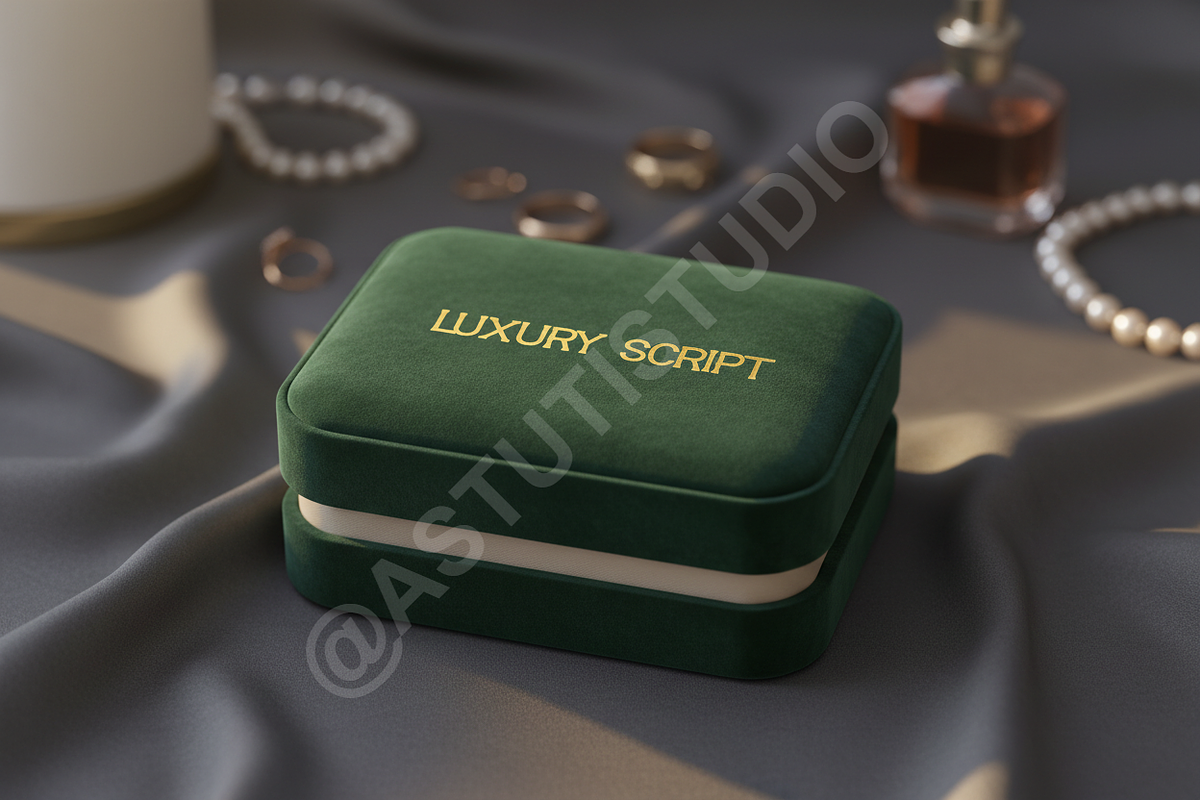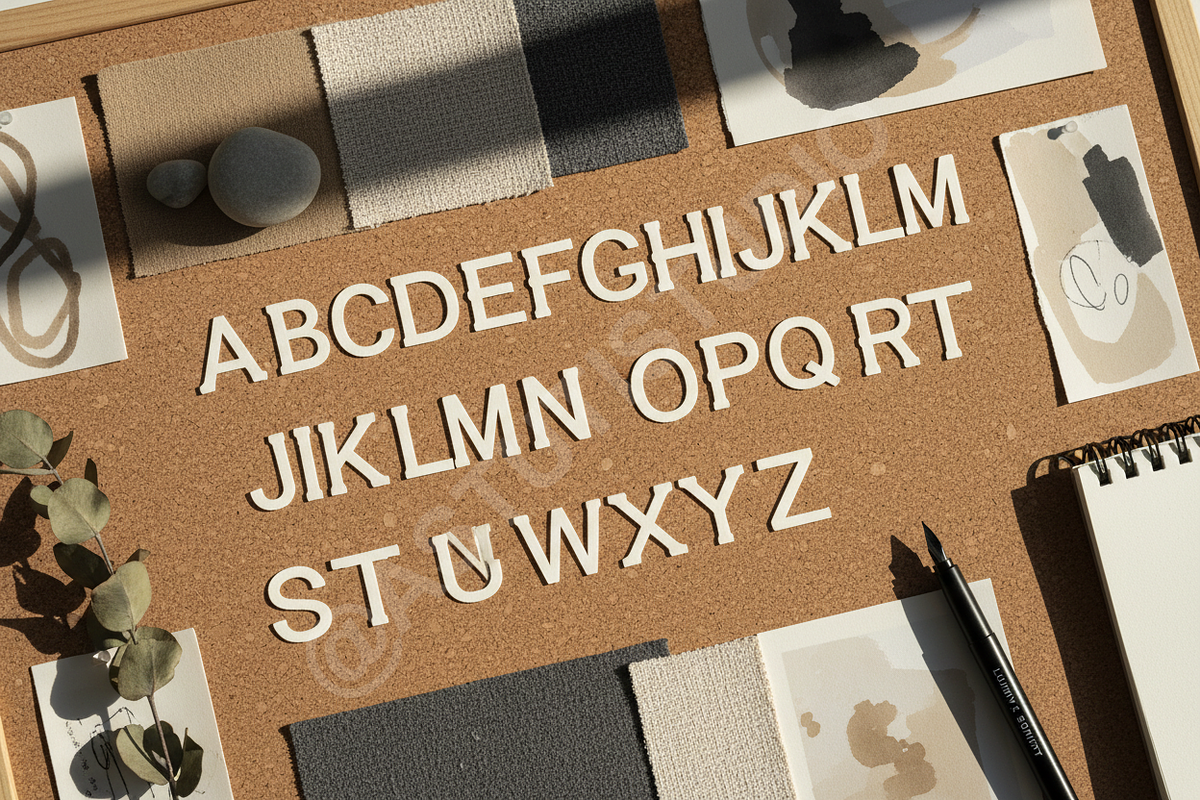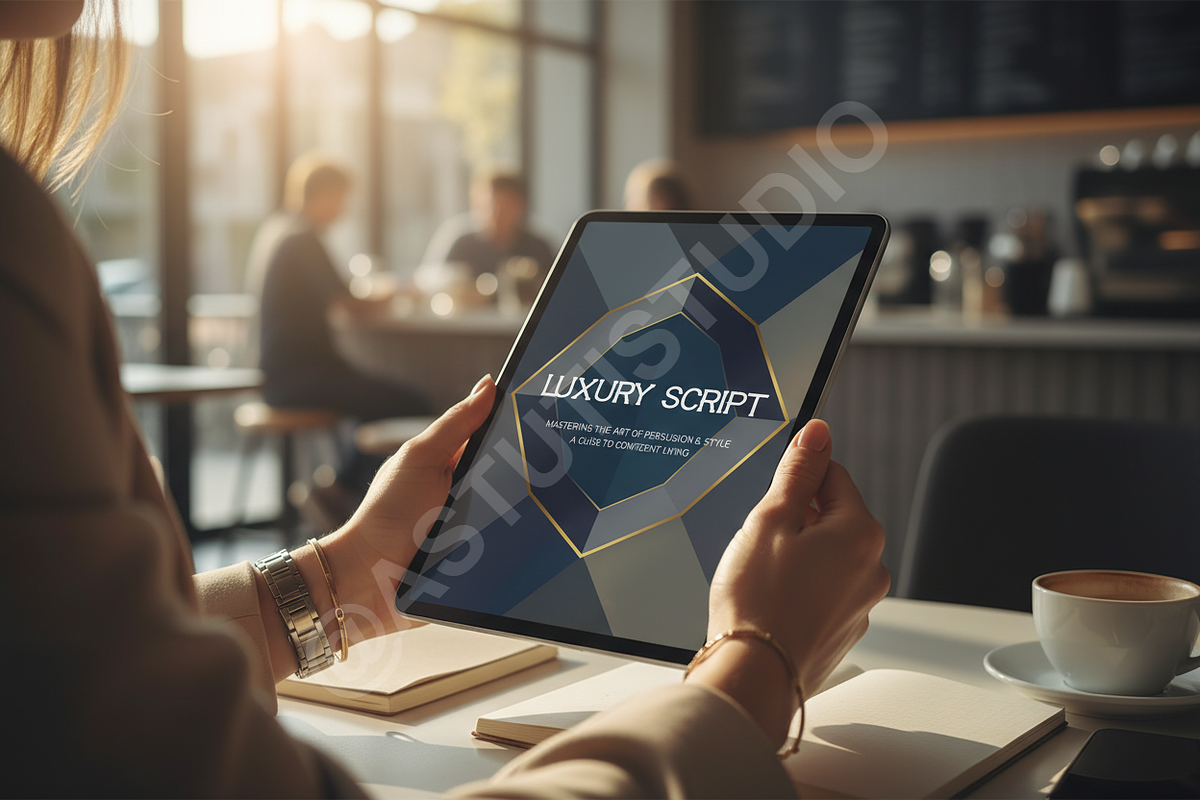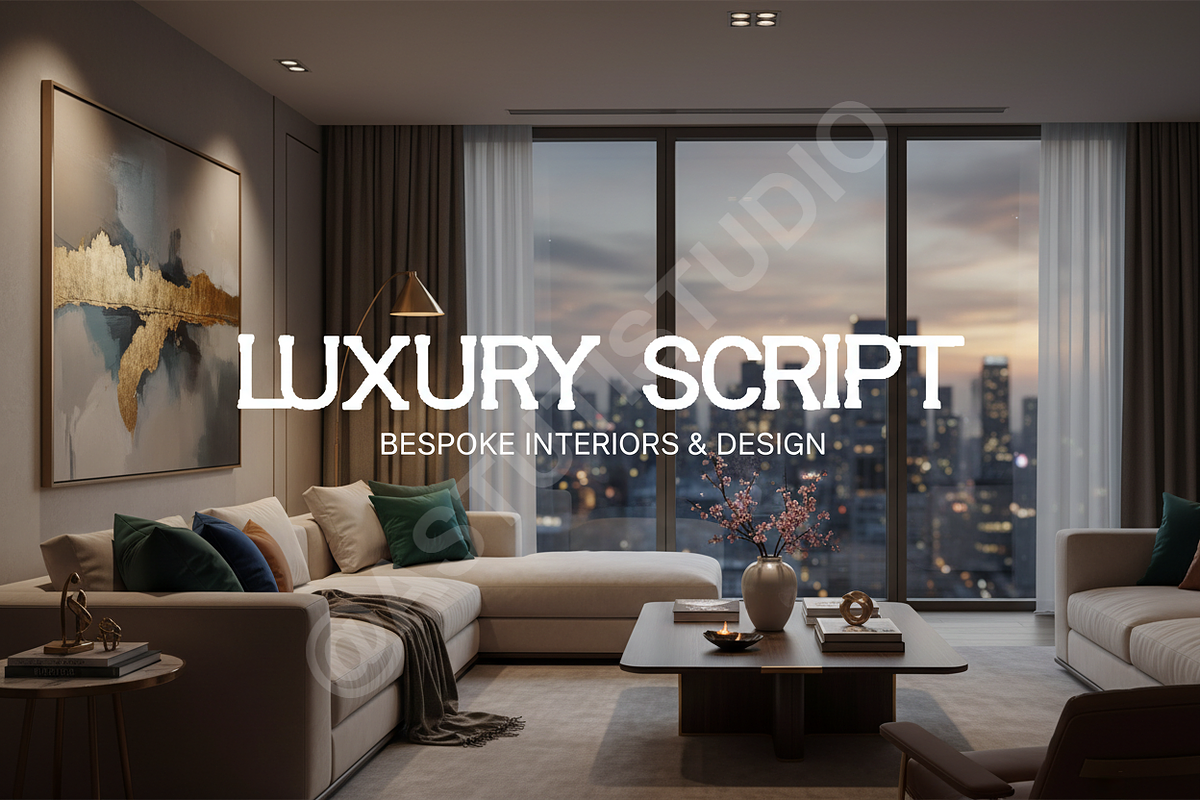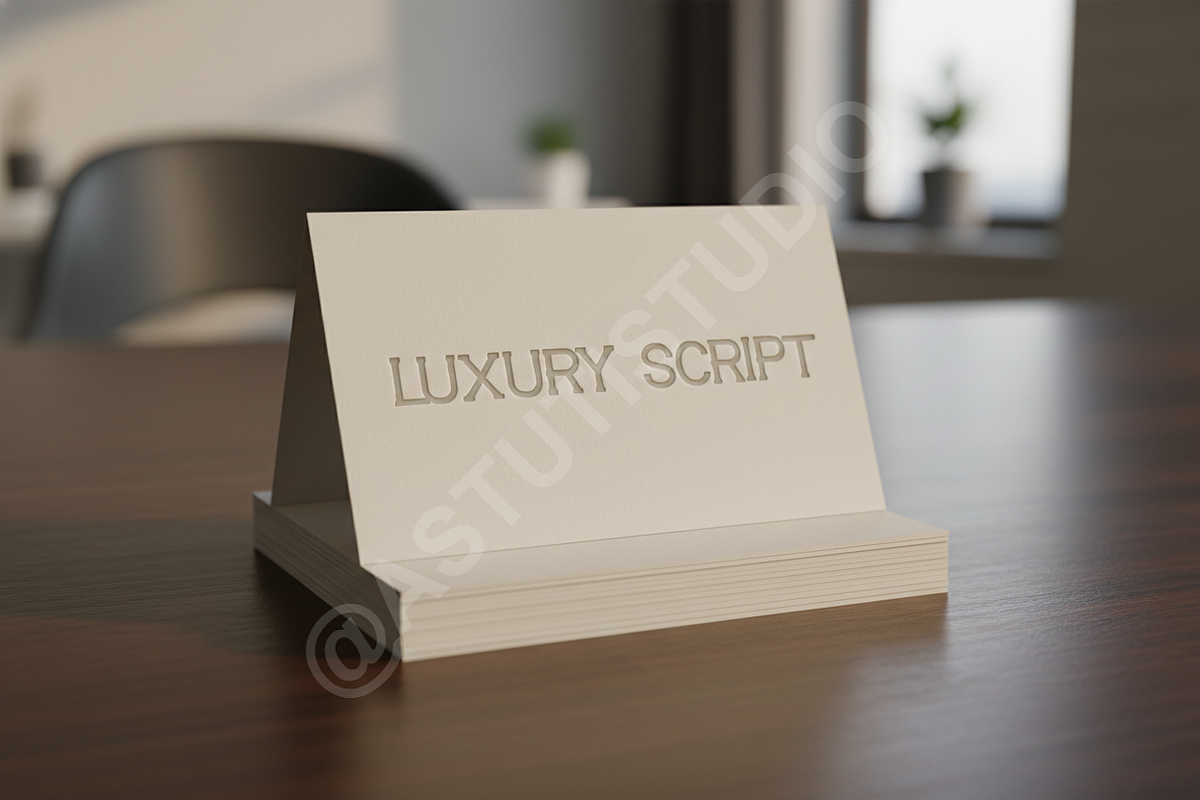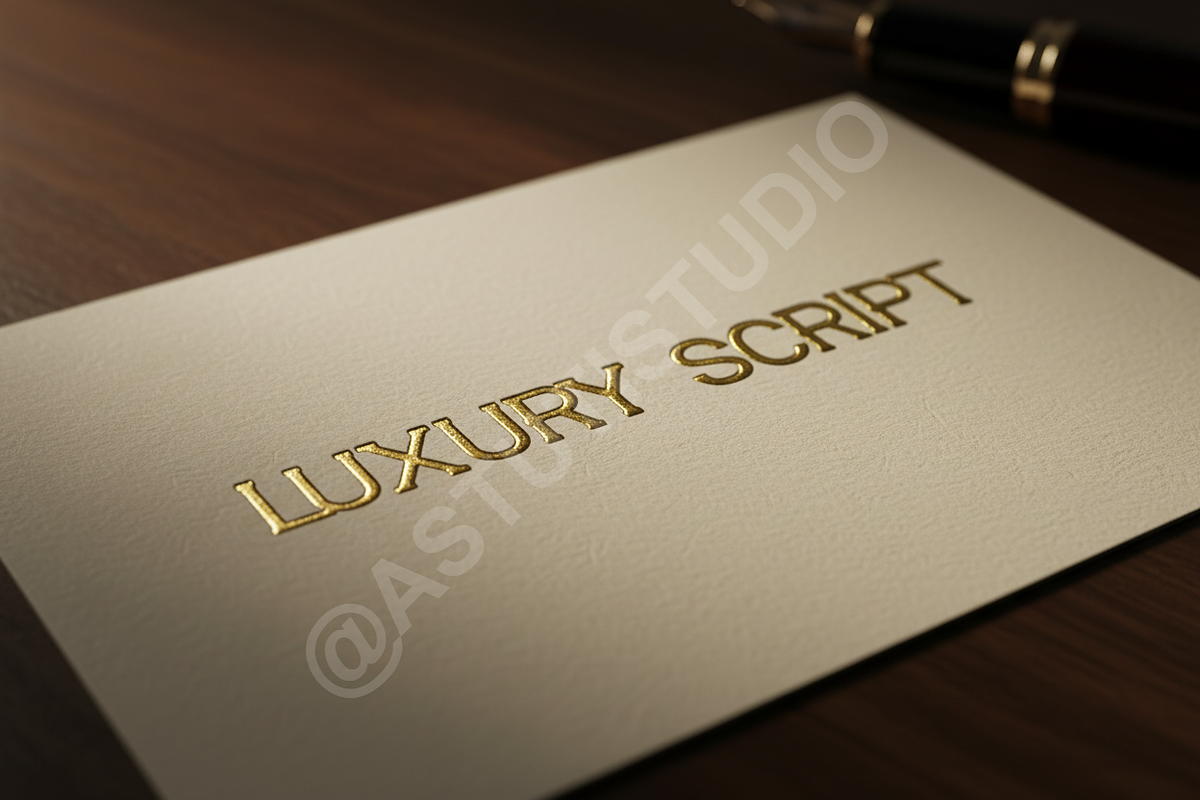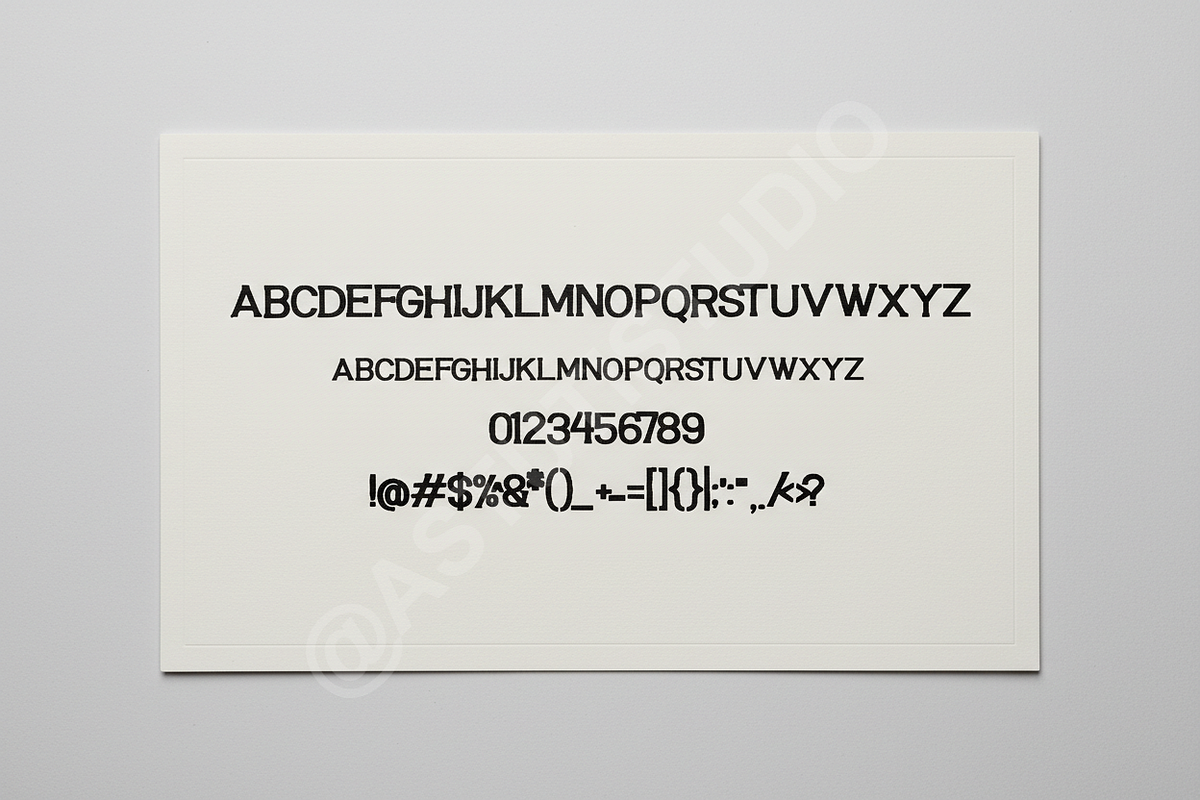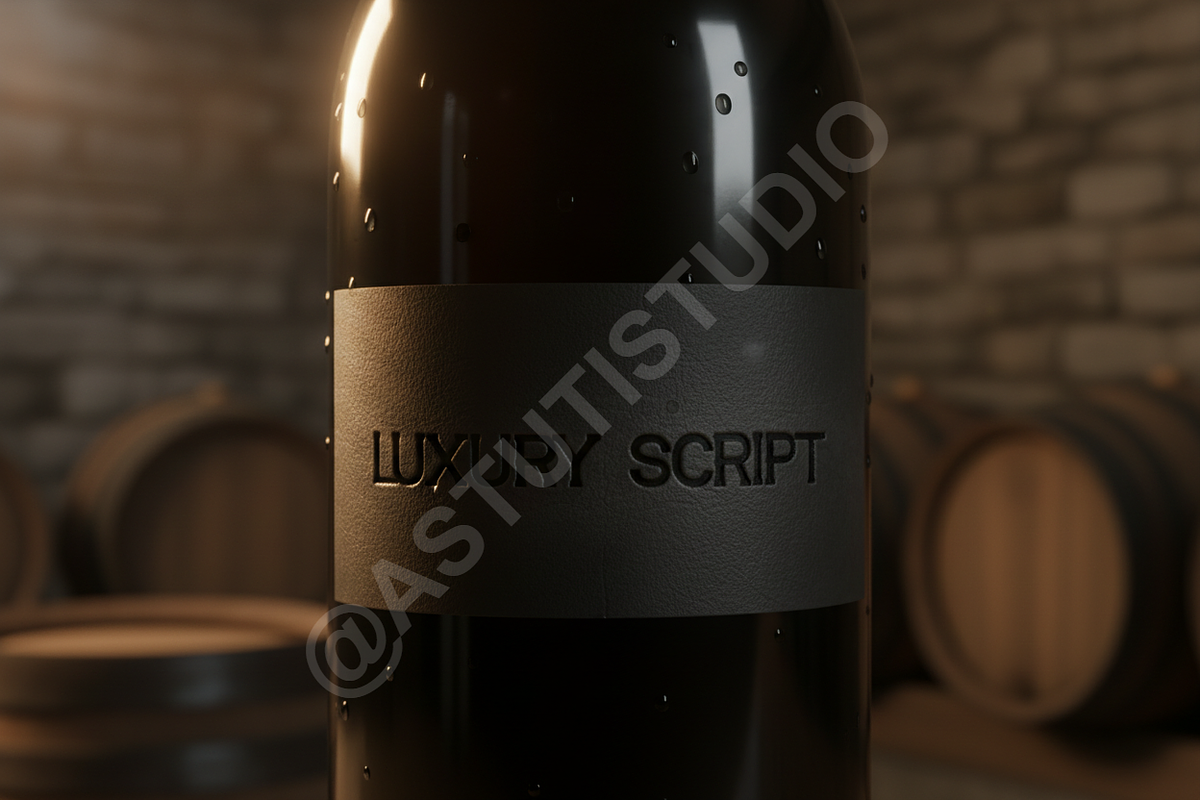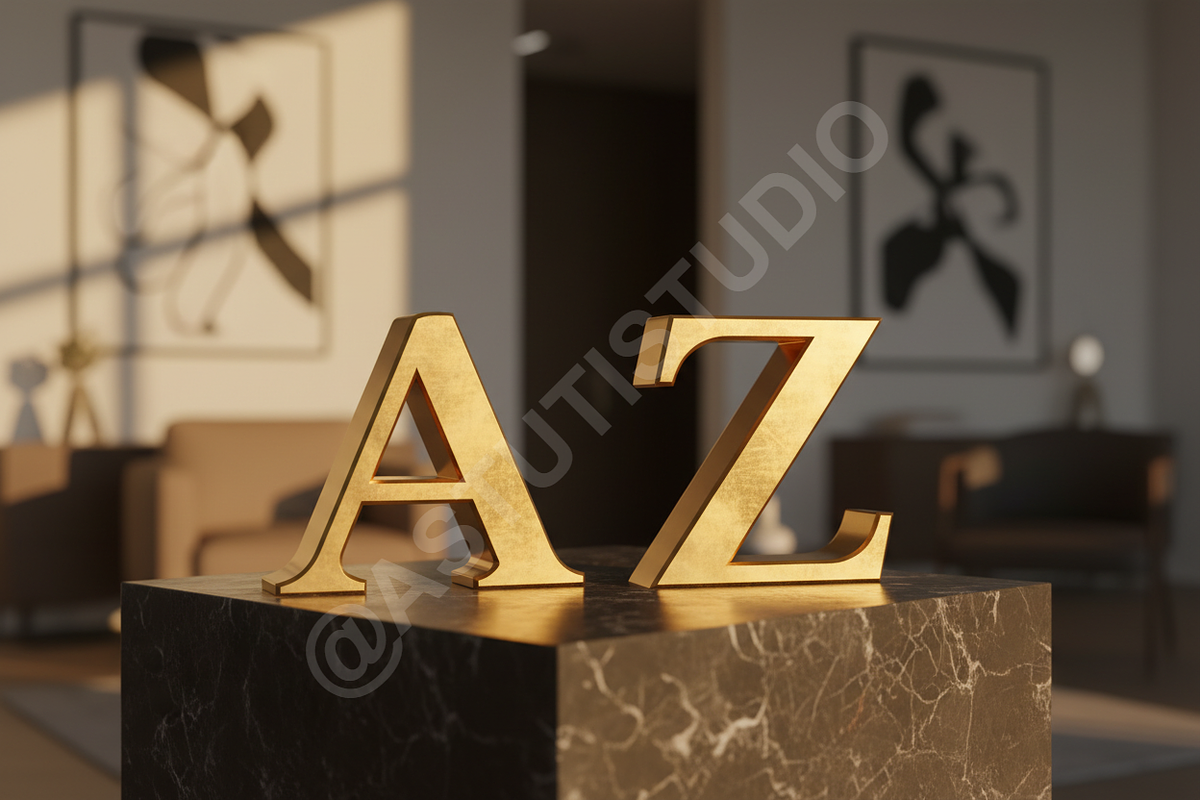
Citazi - Elegant Modern Serif for Lu
Introducing Citazi, an elegant and meticulously crafted modern serif typeface designed for the discerning creative. Citazi balances classic sophistication with sharp contemporary lines, making it the perfect typographical cornerstone for projects requiring an elevated aesthetic. It is specifically engineered to convey prestige and high quality, ideal for capturing attention in luxury branding, high-fashion campaigns, and premium product packaging.
- Refined Aesthetic: Features delicate curves and optimized contrast, ensuring stunning legibility at both display and body text sizes.
- OpenType Capabilities: Includes standard ligatures and stylistic alternates to enrich your typographic palette.
- Versatility: Seamlessly transitions between polished editorial layouts, sophisticated e-commerce headers, and impactful social media graphics.
- Punctuation & Numerals: Complete set of precise numerals and punctuation marks.